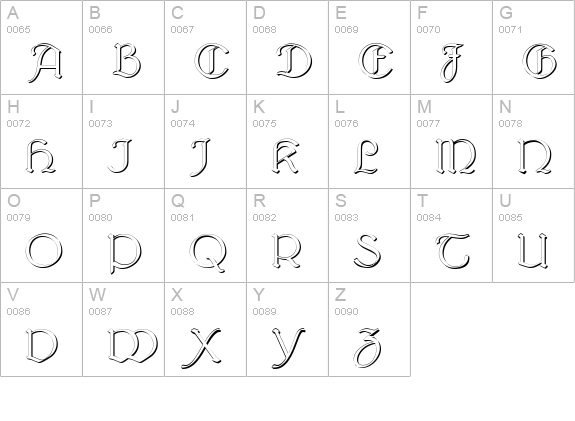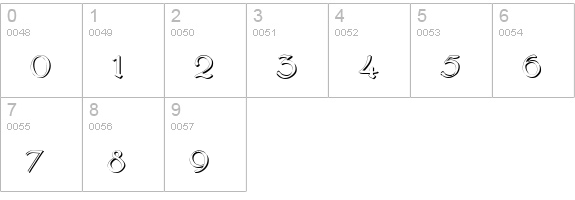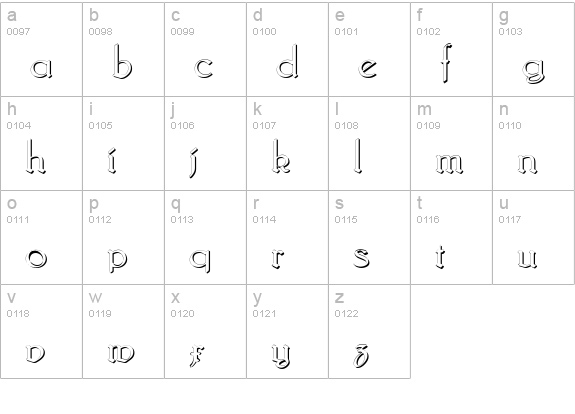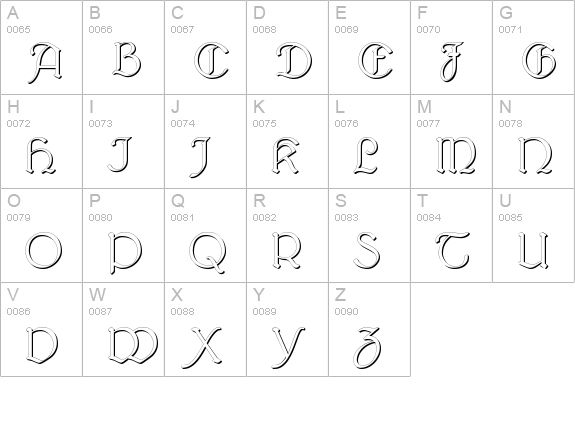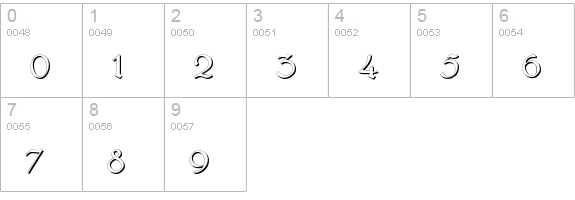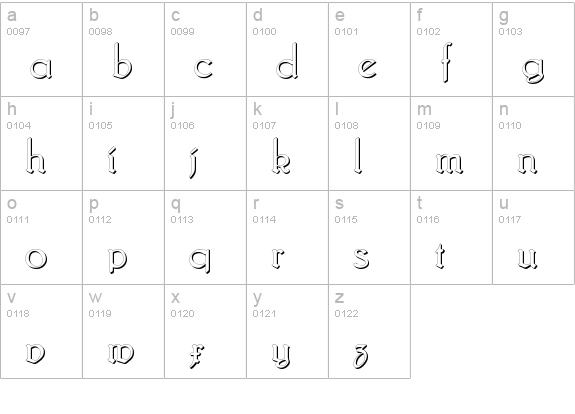
Bridgnorth-Shadow Font Details
Bridgnorth-Shadow font is a bold and eye-catching typeface that exudes elegance and sophistication. The unique shadow effect adds depth and dimension to each letter, making it perfect for headlines, titles, and branding projects. This versatile font combines classic design elements with a modern twist, creating a timeless aesthetic that is sure to make a statement. Best of all, Bridgnorth-Shadow font is available for free download at FontsMarket.com. Whether you're a professional designer looking to add a touch of flair to your projects or a casual user in need of a stylish font for personal use, Bridgnorth-Shadow font is the perfect choice. Don't miss out on this opportunity to elevate your designs with this stunning and freely available font.